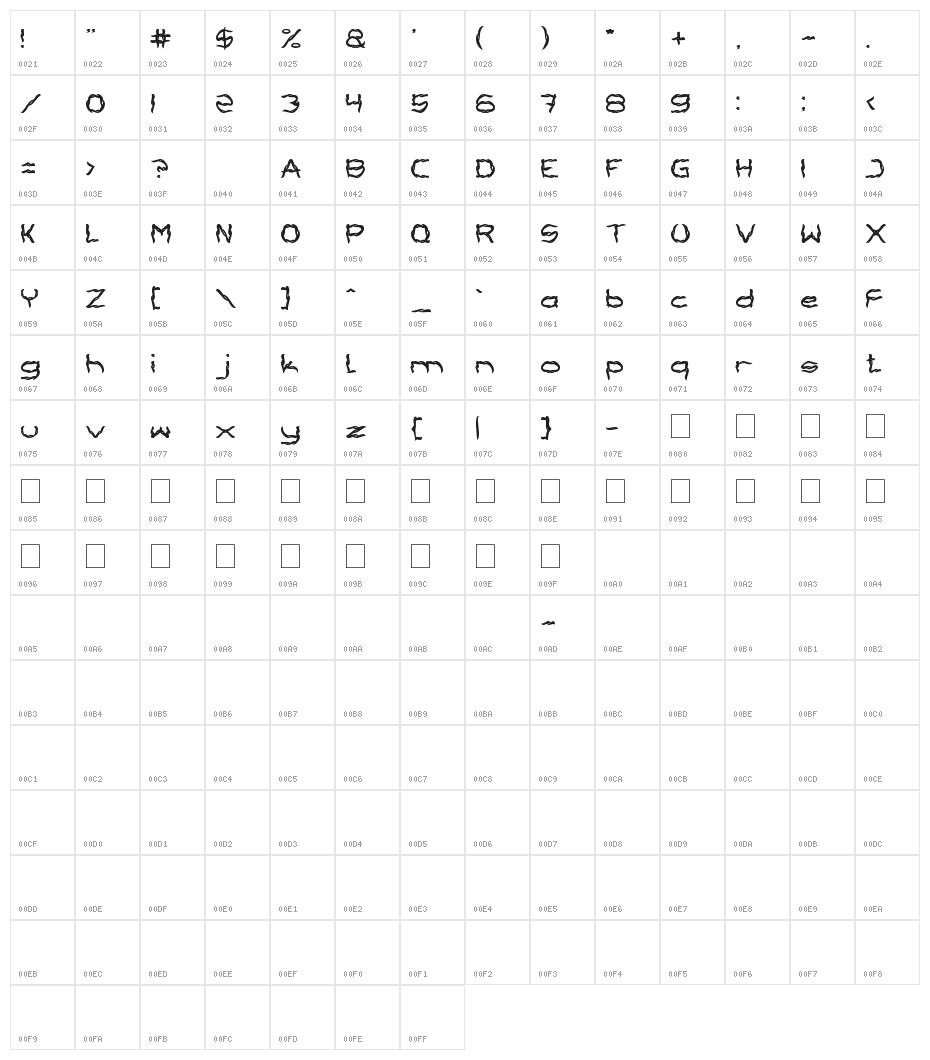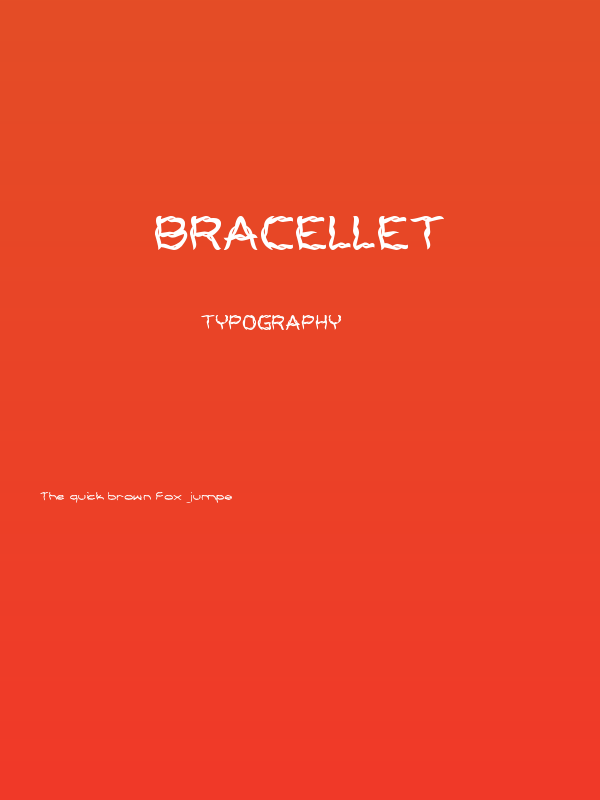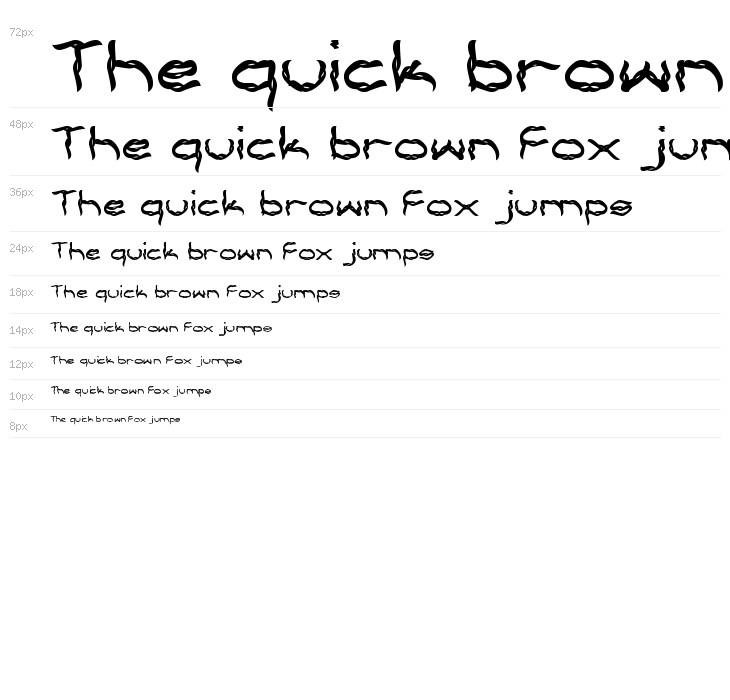
BRACELLET Font
BRACELLET Description
This font features a unique, organic design with a twisted, vine-like appearance. The characters are irregular and have a hand-drawn quality, giving them a natural and slightly chaotic look. The strokes are uneven, with varying thicknesses that create a dynamic and textured effect. This font stands out with its decorative style, making it suitable for creative and artistic projects. The uppercase and lowercase letters maintain a consistent theme, while the numbers and special characters complement the overall aesthetic. Its distinctive style makes it ideal for eye-catching designs.
| Use Case | Logos, Headlines, Posters |
| Proposed Projects | Ideal for artistic projects, album covers, posters, and creative branding. |